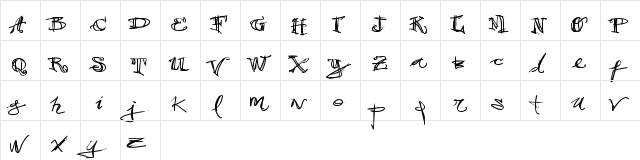
vtks 38 Regular
Design Context for vtks 38 Typeface
vtks 38 is a composed and adaptable typeface that performs quietly and consistently across a wide range of design contexts.